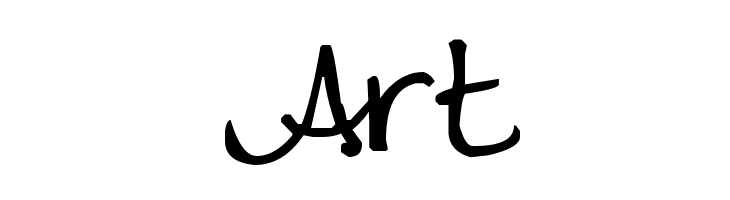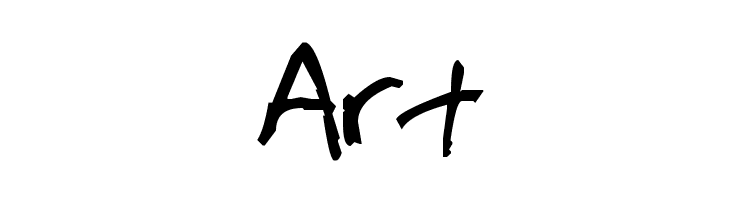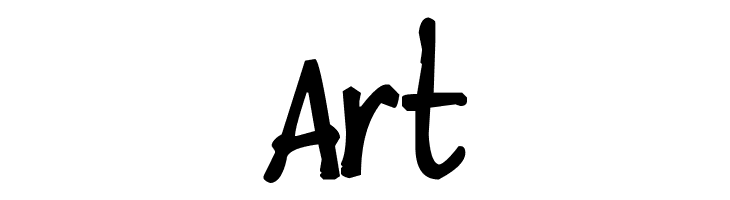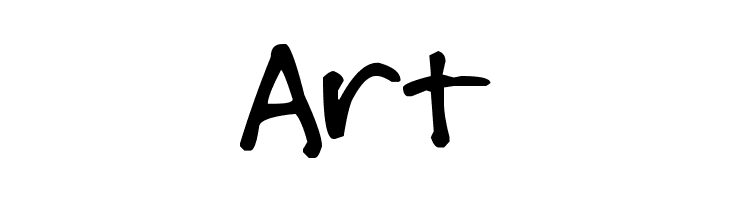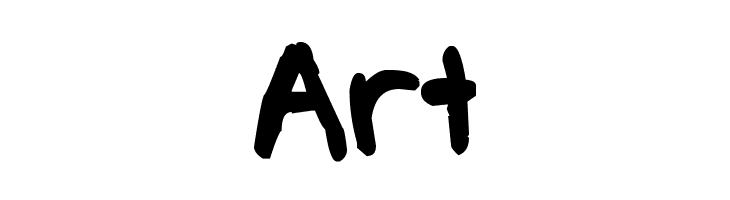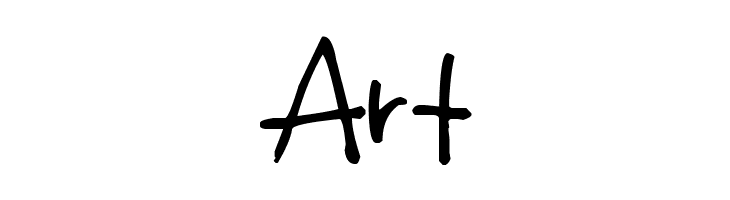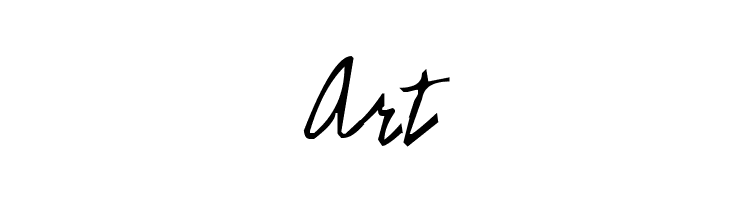
• Pea Tiphanie
A casual, playful handwritten font with fluid strokes.
• Pea Tonya
A playful, bold handwritten font with a casual and friendly style.
• Pea Tracy
A playful, casual handwritten font with a relaxed and organic style.
• Pea Walker
A playful, handwritten font with bold strokes and a casual, approachable style.
• Pea Whinney
A bold, handwritten font with a playful and informal style.
• Pea Whinney Skinney
A playful handwritten font with a casual and friendly vibe.
• Pea XOXO from Karen
A playful, casual handwritten font with fluid, connected letterforms.
• Pea Yar Yar
• PeaceTools
An illustrative font merging peace symbols with weaponry for visual storytelling.
• Pekrif Normal
Abstract, geometric, and cryptic decorative font.